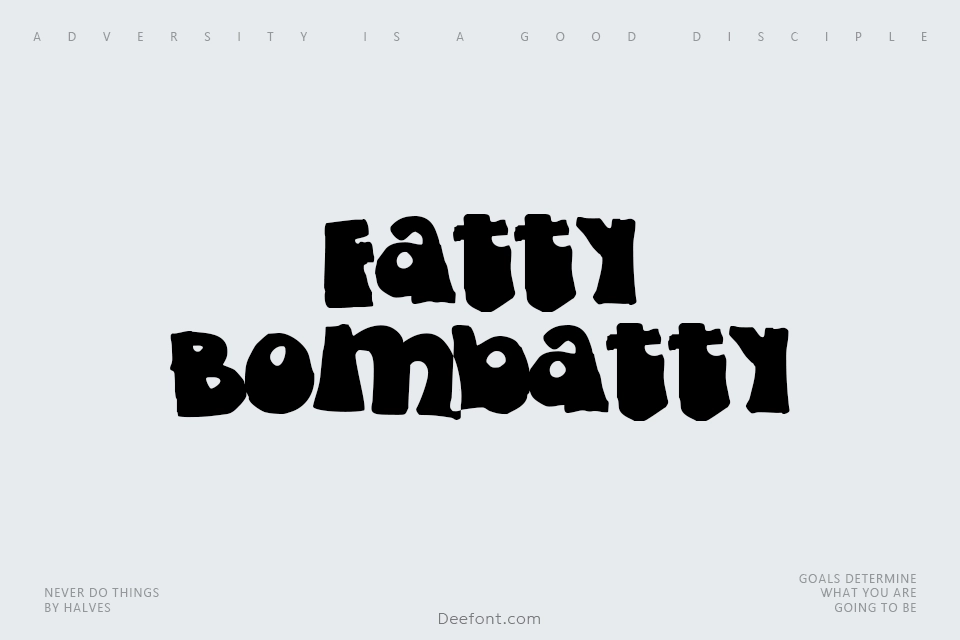
Fatty Bombatty Font
Fatty Bombatty is a bold and playful display font featuring exaggerated, chunky letterforms with rounded edges and an informal feel. The font maintains a uniform width across all characters, creating a balanced and cohesive look that exudes confidence and charm. With its whimsical style and heavy weighting, it's ideal for capturing attention in children's books, party invitations, playful branding, creative posters, and various design projects requiring a touch of humor and lively energy.